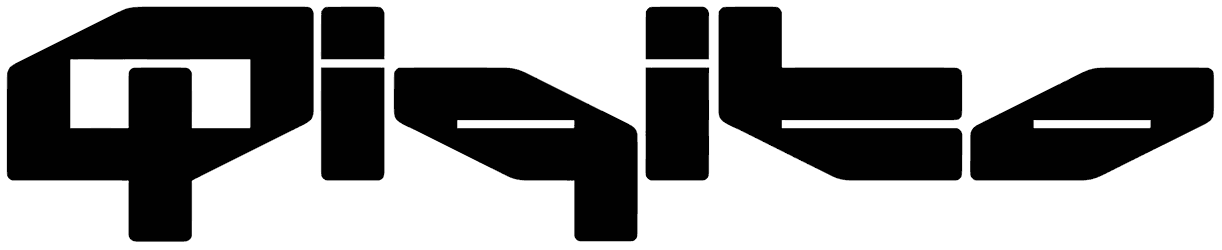
Qiqito Font
Are you tired of using duplicate formal fonts and looking for a fresh, unique font to diversify your graphic content? On this occasion, we can solve all of your problems by introducing a glamorous techno font such as Qiqito.
Since it comes with a polygonal style, it can easily impress the audience by sharing a sense of jauntiness, eccentricity, or dynamism. If you don’t care about the lack of good readability, try it in your posters, applications, and flyers.
This is QIQITO.
QIQITO is a futuristic inspired display typeface dedicated to Quique Peydro.
QIQITO covers basic latin and greek glyphs.
QIQITO includes dozens of alternate glyphs and ligatures.
Activate them by adding _, *, _*/*_ or ** after certain glyphs.